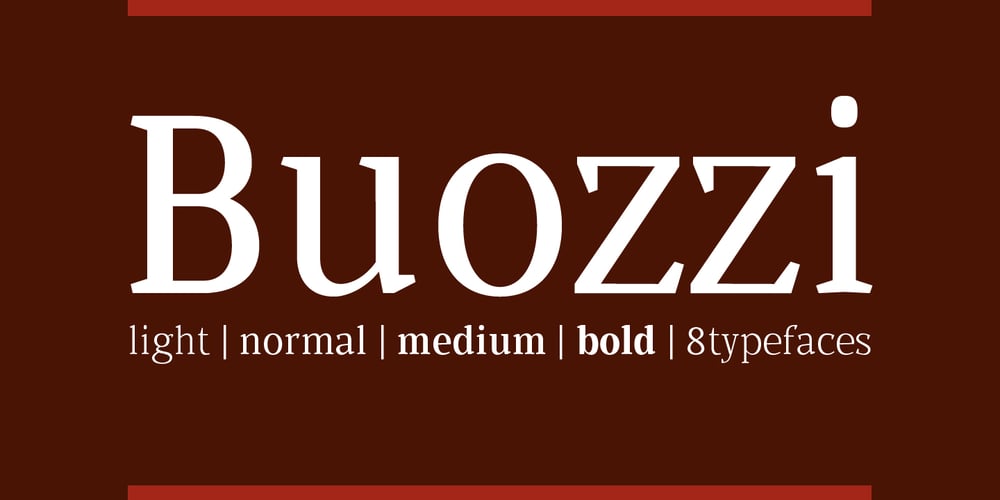
Buozzi Font Family was designed by Jefferson Cortinove and published by Sea Types. Buozzi contains 8 styles and family package options. Buozzi is a family composed of 8 typefaces, inspired by sketches and notes from the printer, Paulista (Brazil) “Walter Buozzi”, suitable for Editorial Design (books, magazines and newspapers).